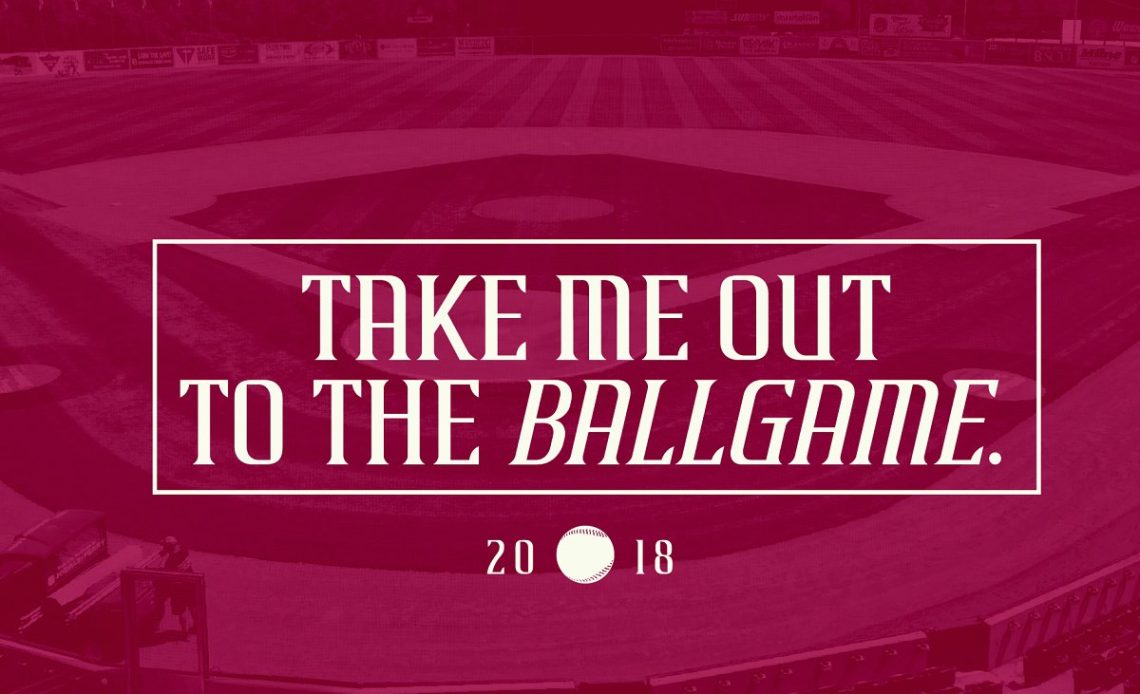
Step up to the plate with Killebrew Single, the ultimate baseball-inspired display typeface. Designed by Sean Thorenson, this athletic typeface boasts a subtle blackletter feel that reflects the German heritage of the Midwest. Whether you're looking for a classic, vintage baseball feel or something distinctly Midwestern, Killebrew Single delivers.
With two type styles to choose from (Single and Single Slide), you'll have all the characters you need to create eye-catching designs. Killebrew Single includes upper and lower case letters, numbers, standard punctuation and glyphs, and multilingual support, making it perfect for a wide range of projects.
Killebrew Single is the best font for small display, providing the look and feel of an All-American baseball club. This font family is perfect for anyone looking to elevate their designs and take their projects to the next level.